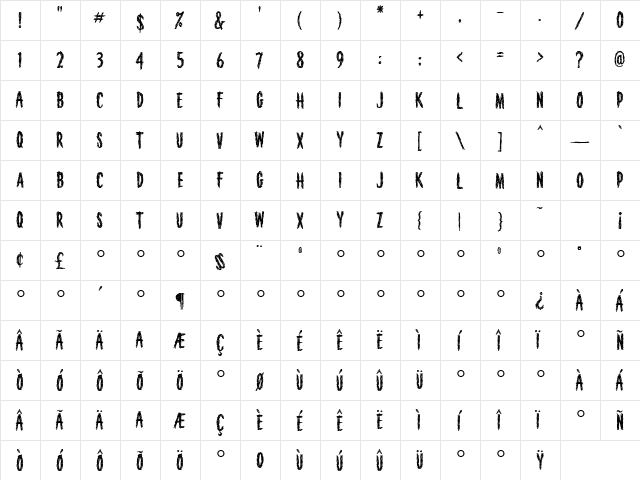
HouseofHorror Regular
Design Context for HouseofHorror Typeface
HouseofHorror carries an unsettling edge — its distorted letterforms are built to unsettle, perfectly suited to horror, Halloween, and dark creative work.
Ideal for Halloween projects, horror film titles, haunted house signage, and dark editorial design.
Font Pairing: Pair with a clean neutral sans-serif for body copy to let HouseofHorror's character lead without overwhelming the composition.
Pro Tip: HouseofHorror works best as a headline or focal element. Pair it against plain, neutral body text to amplify the contrast.